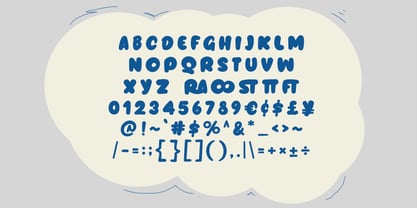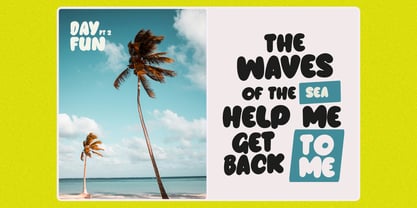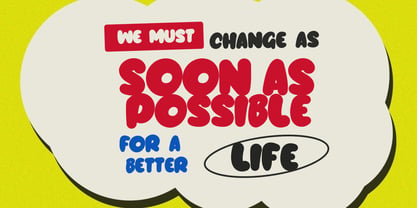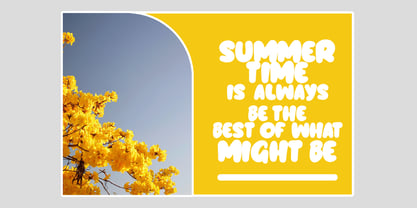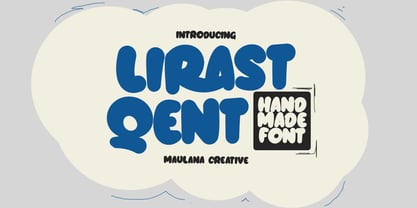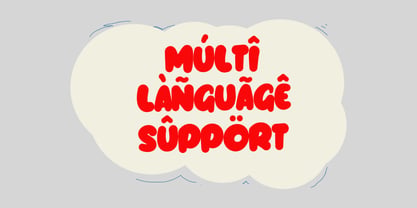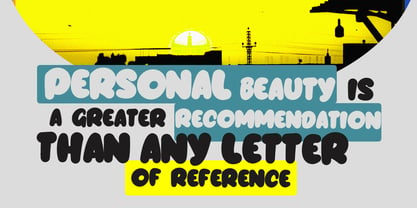
MC Lirast Qent
by Maulana Creative
The MC Lirast Qent Font Family was designed by Gilang Maulana and published by Maulana Creative. MC Lirast Qent contains 1 styles. More about this family
Lirast Qent is a handmade bubble display handwritten font. With bold stroke, fun character with a bit of ligatures. To give you an extra creative work. Lirast Qent font support multilingual more than 100+ language. This font is good for logo design, Social media, Movie Titles, Books Titles, a short text even a long text letter and good for your secondary text font with sans or serif. Make a stunning work with Lirast Qent Handmade Bubble Display Font.
Designers: Gilang Maulana
Foundry: Maulana Creative